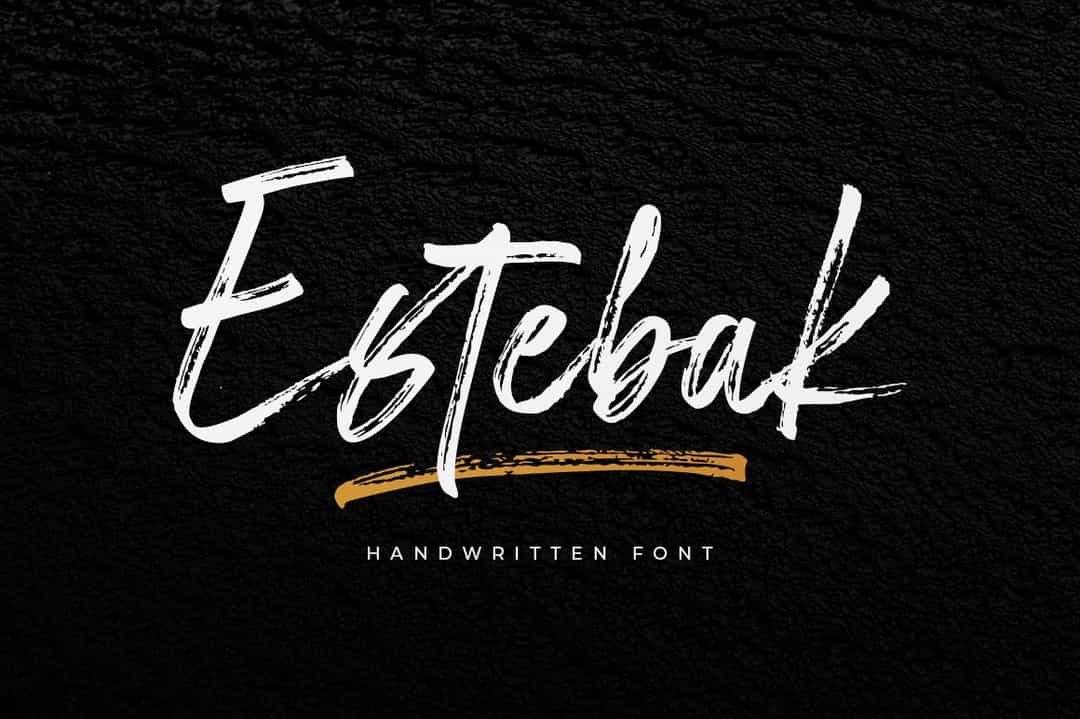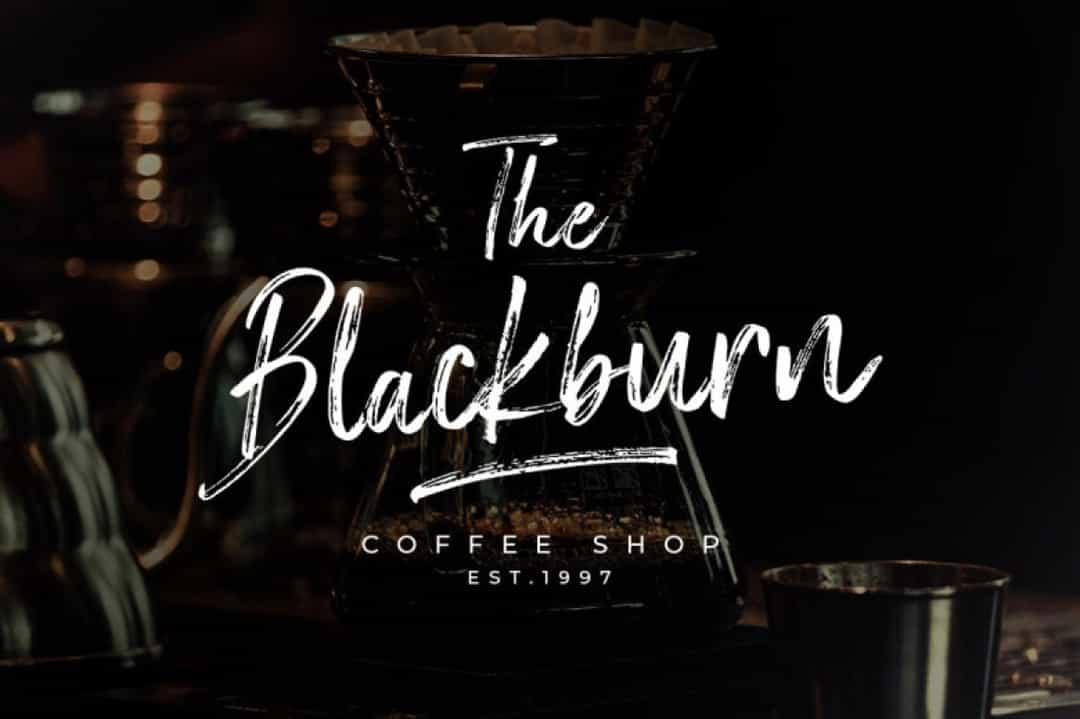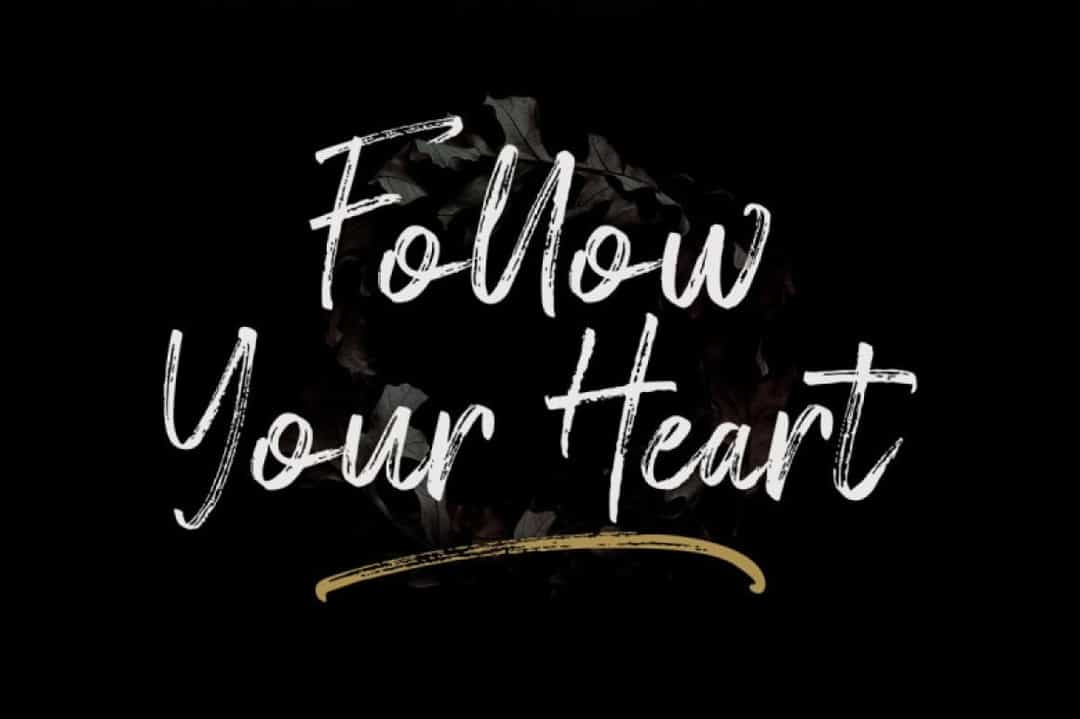
Estebak is a contemporary approach to design that combines handcrafted natural elements with an sloping baseline, ideal for title design on invitations, clothing and books, stationery designs (quotes), greeting cards (logos/t-shirt designs/poster), packaging design (posters etc) as well as poster printing designs.